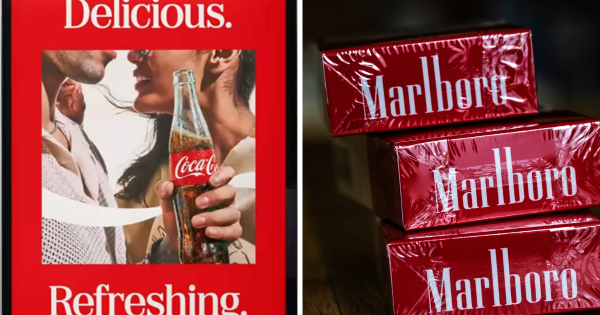
Earlier this week, Coca-Cola began an uproar over one thing shoppers often don’t get labored up about: a typeface.
As a part of the launch of a “new world visible identification system,” developed by JKR, Coke tweaked its well-known Spencerian script and the “dynamic ribbon” that flows beneath it.
However what received shoppers mad was a brand new complementary slab serif font referred to as Higher With. Possibly it ought to’ve been referred to as higher with out, since disgruntled lots fumed that the font—used with Coke’s signature crimson and white colours—appeared quite a bit like a pack of Marlboro reds.
“Am I the one one seeing Marlboro soda?” asked one commentator on X. “Coca-Cola utilizing the Marlboro font of their new rebrand. Very odd,” posted one other. “Any individual over 40 realizes that that is the Marlboro font,” added a 3rd.
For the document, it’s not. Marlboro makes use of a proprietary typeface (its nearest equal is Neo Contact) and there are numerous structural variations between it and Higher With. However regardless of: the 2 felt shut sufficient to stir folks up.
At first blush, it appeared just like the tumult stemmed from high-sugar sodas changing into a Gen Z stand-in for tobacco—“fridge cigs.” That one not-so-good-for-you model would resemble one other terrible-for-you model was absurd.
Specialists recommend that one thing deeper is happening right here that has little to do with smoking or sipping and all the pieces to do with shoppers’ psychological bonds to their favourite manufacturers.
“With Coke, the font grew to become the main focus as a result of it’s a key identifier of a model that’s been part of our lives for generations,” stated Sabrina Babooram, companion and head of technique at Toronto-based company Academy.
“Coke is wallpaper in folks’s lives. Change the wallpaper even a bit, and folks discover,” added model technique knowledgeable Allen Adamson, cofounder of Metaforce.
Adamson (who lower his tooth at Landor, which dealt with Coke’s model within the Eighties) identified that the Higher With typeface truly debuted in 2023, when Coke used it briefly for its vacation advertising—“and no person blinked,” he stated.
Clients elevating hell over a change in commerce gown has occurred earlier than. Ikea followers went ballistic in 2009 when the corporate deserted its Futura typeface for Veranda; when Tropicana modified its carton (and typeface) that very same 12 months; and when Hole switched to Helvetica in 2010—earlier than swiftly switching back